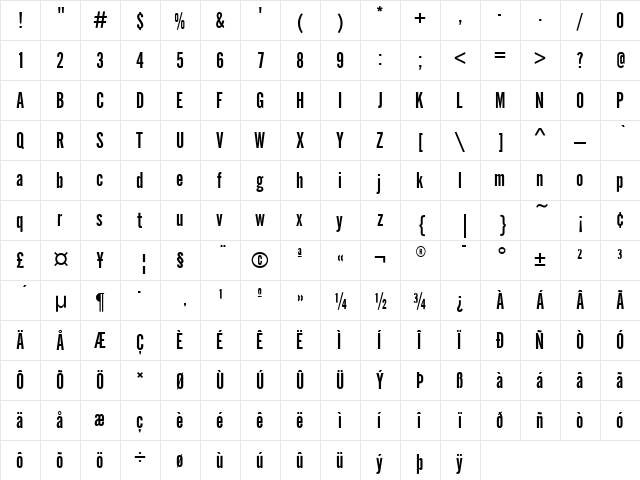
AlternateGothicEF NoOne Regular
Design Context for AlternateGothicEF NoOne Typeface
AlternateGothicEF NoOne has the quiet confidence of well-executed sans-serif typography: versatile, unobtrusive, and dependable at any size.
Font Pairing: Works well alongside a characterful serif or display font that can carry the expressive load while AlternateGothicEF NoOne handles the functional copy.
Pro Tip: Pair AlternateGothicEF NoOne with a display or serif font for headlines — its neutral character makes it an excellent supporting player in complex typographic systems.